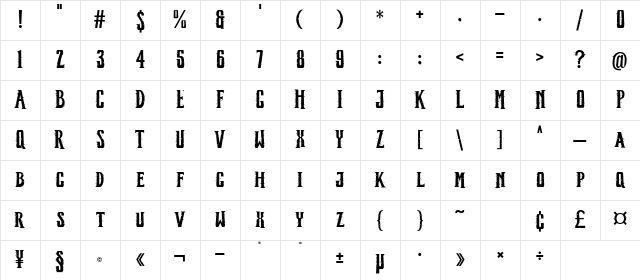
Morvien Regular
Foundry: Alit Design
Designer: I Kadek Paniawan
Design Context for Morvien
Morvien is a composed and adaptable typeface that performs quietly and consistently across a wide range of design contexts.